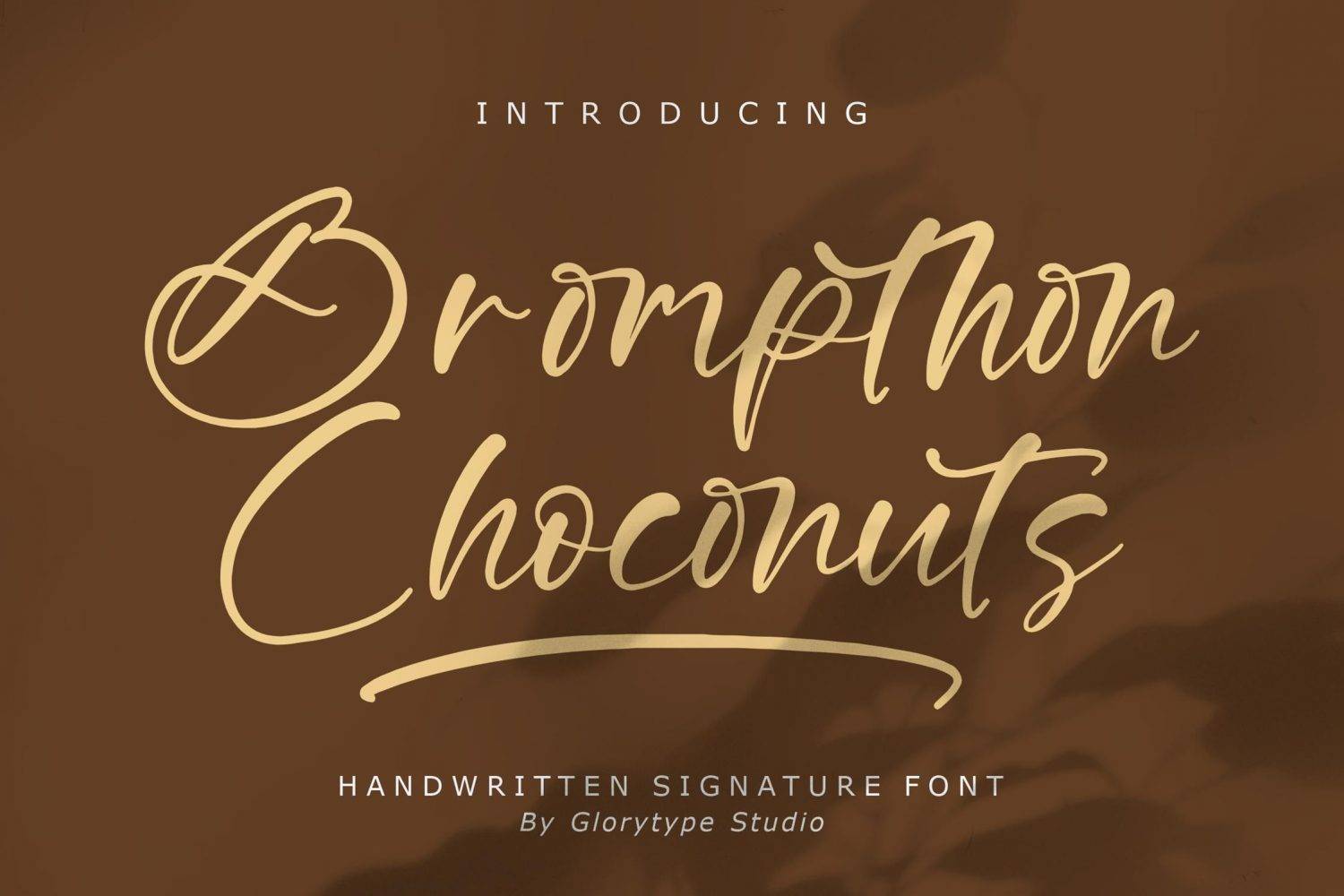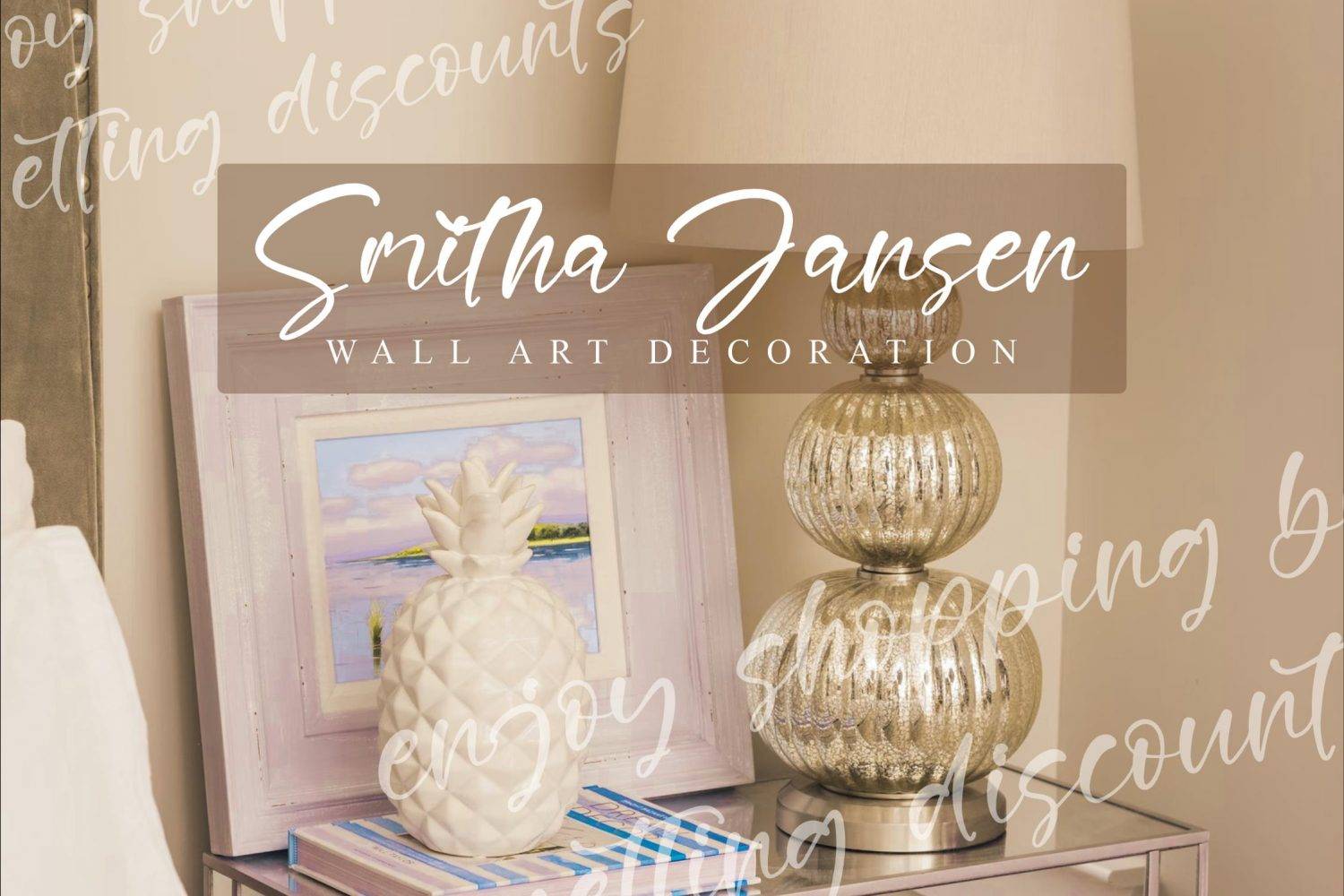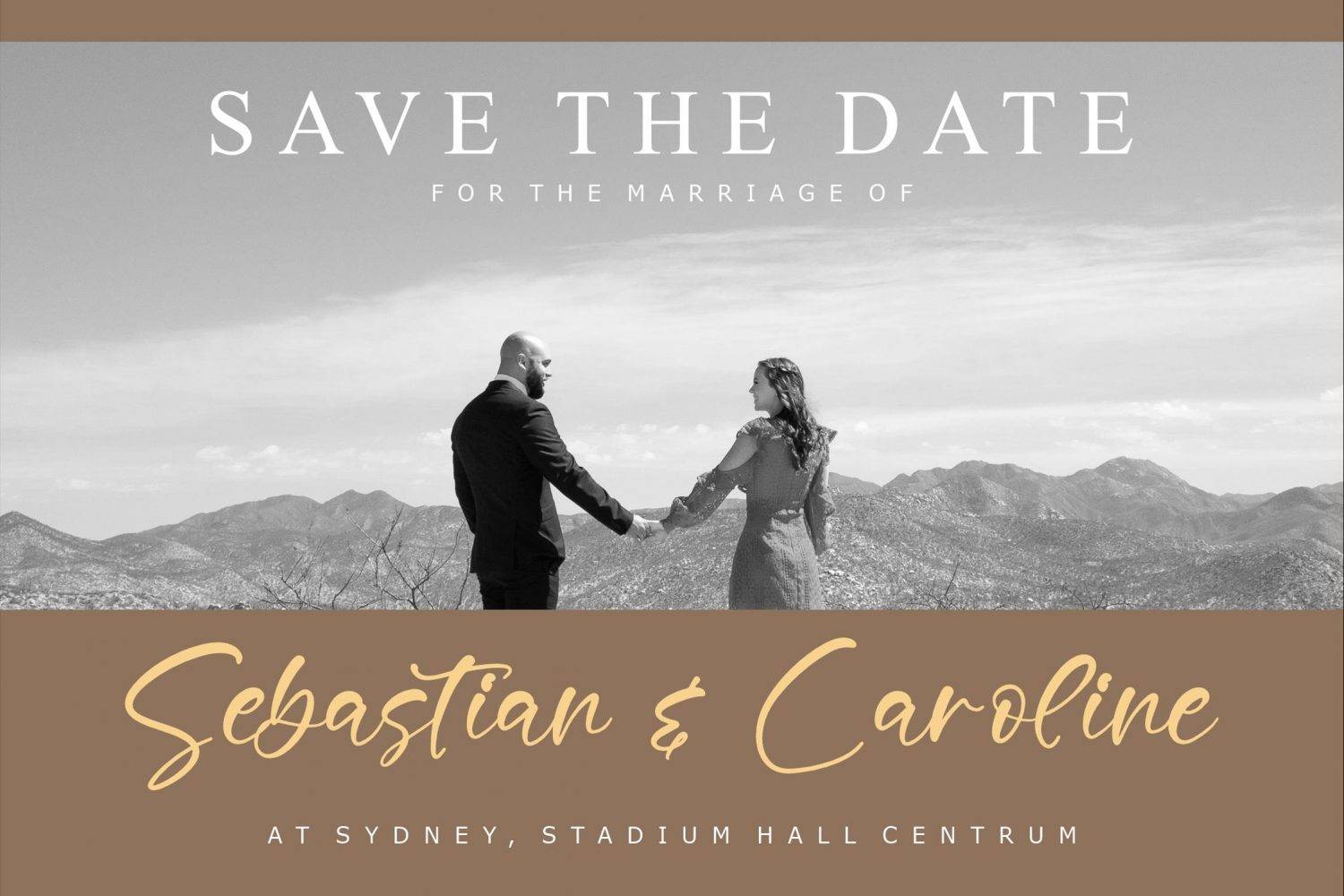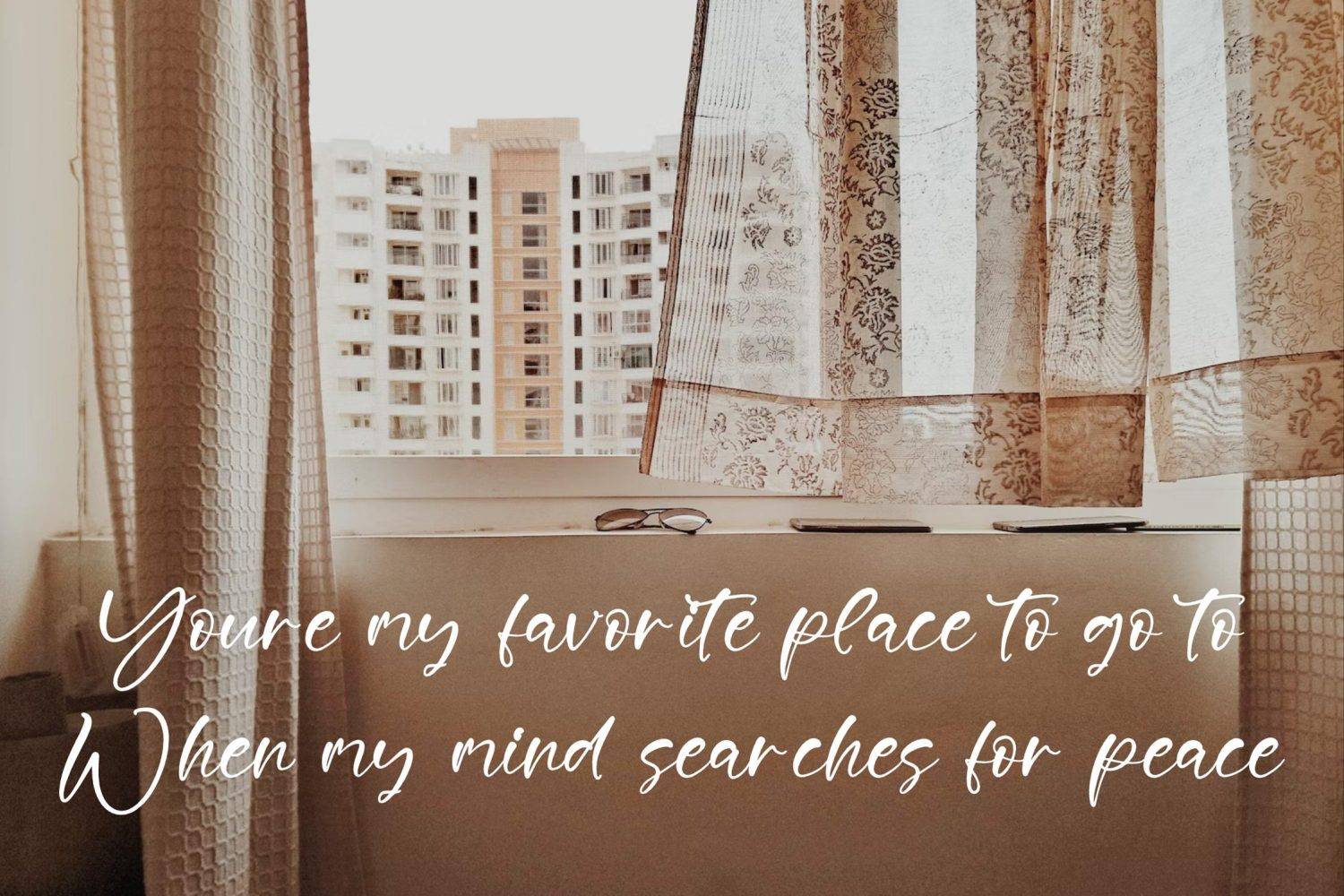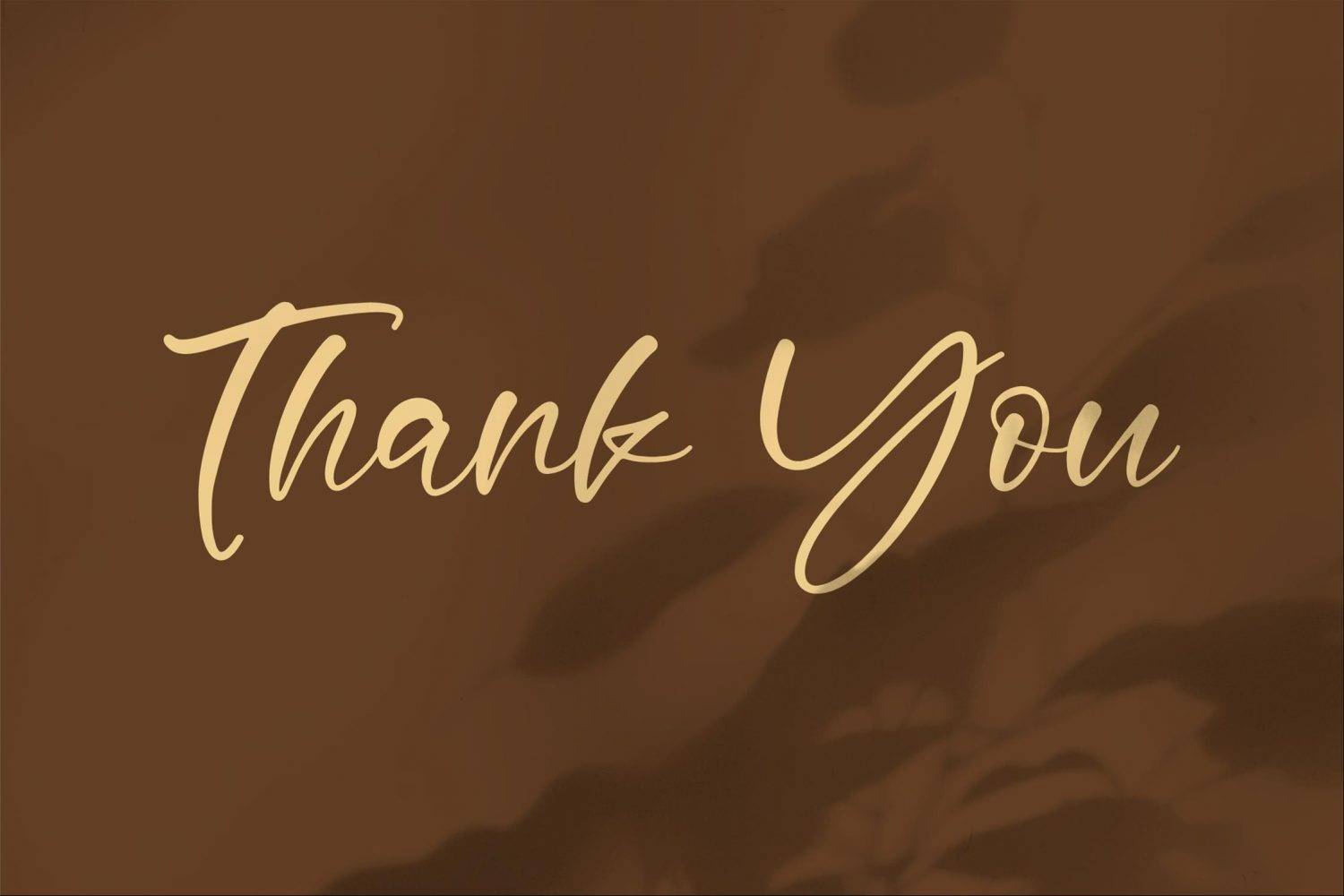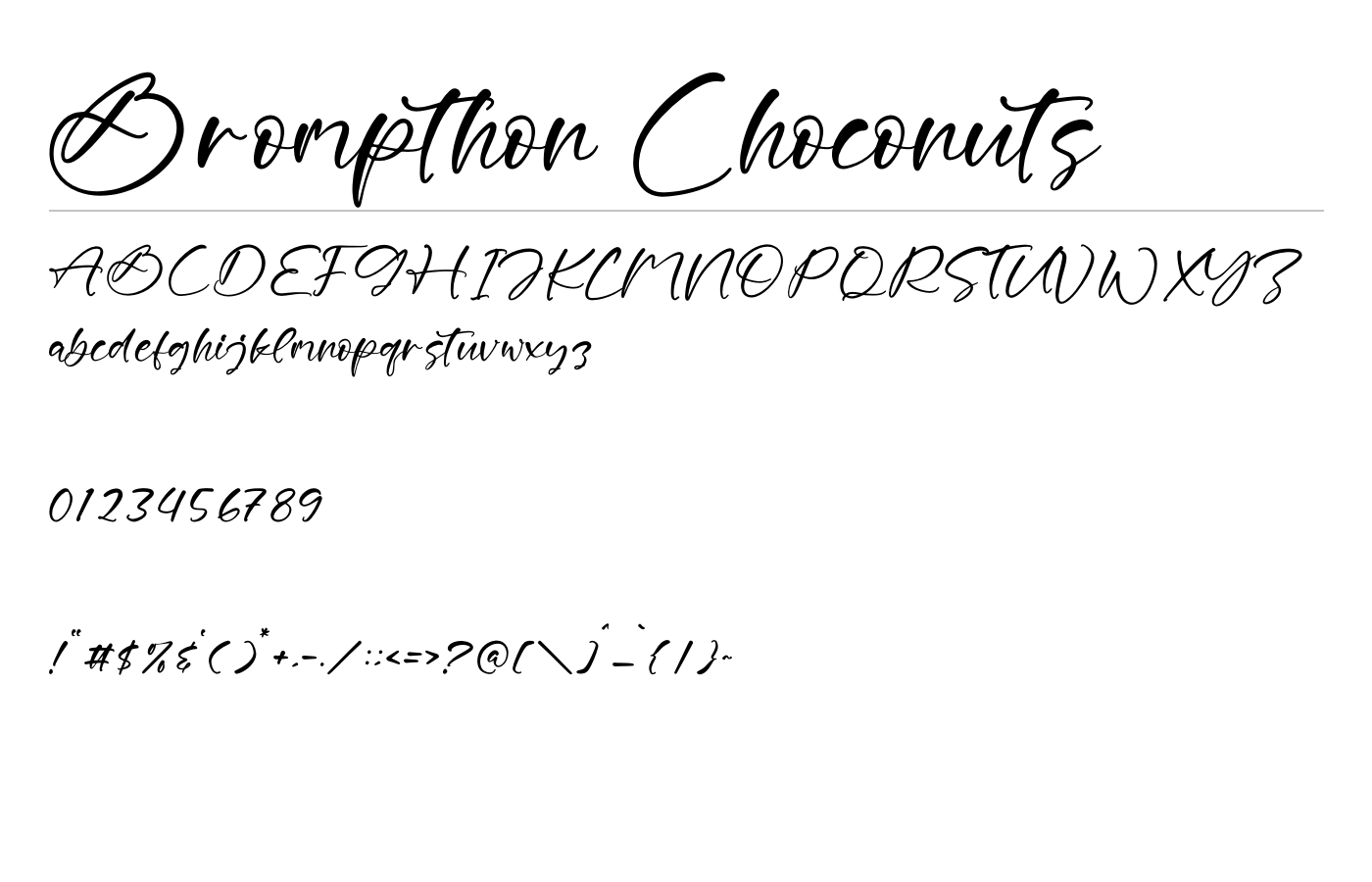
Brompthon Choconuts is an elegant, flowing script font with a light, organic feel that mimics natural handwriting. Its thin, slightly irregular strokes and playful loops give it a warm, personal touch, making it perfect for invitations, branding, and creative projects where a friendly yet refined look is desired. This font works beautifully in headlines or decorative text where a stylish, handcrafted vibe is needed.
Brompthon Choconuts Font
About Brompthon Choconuts Font
| Font family | Brompthon Choconuts Font |